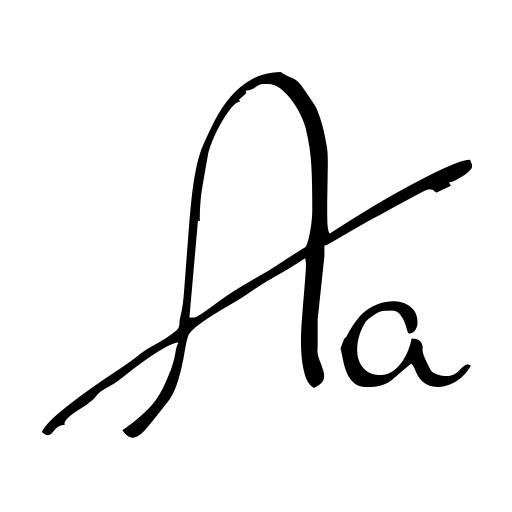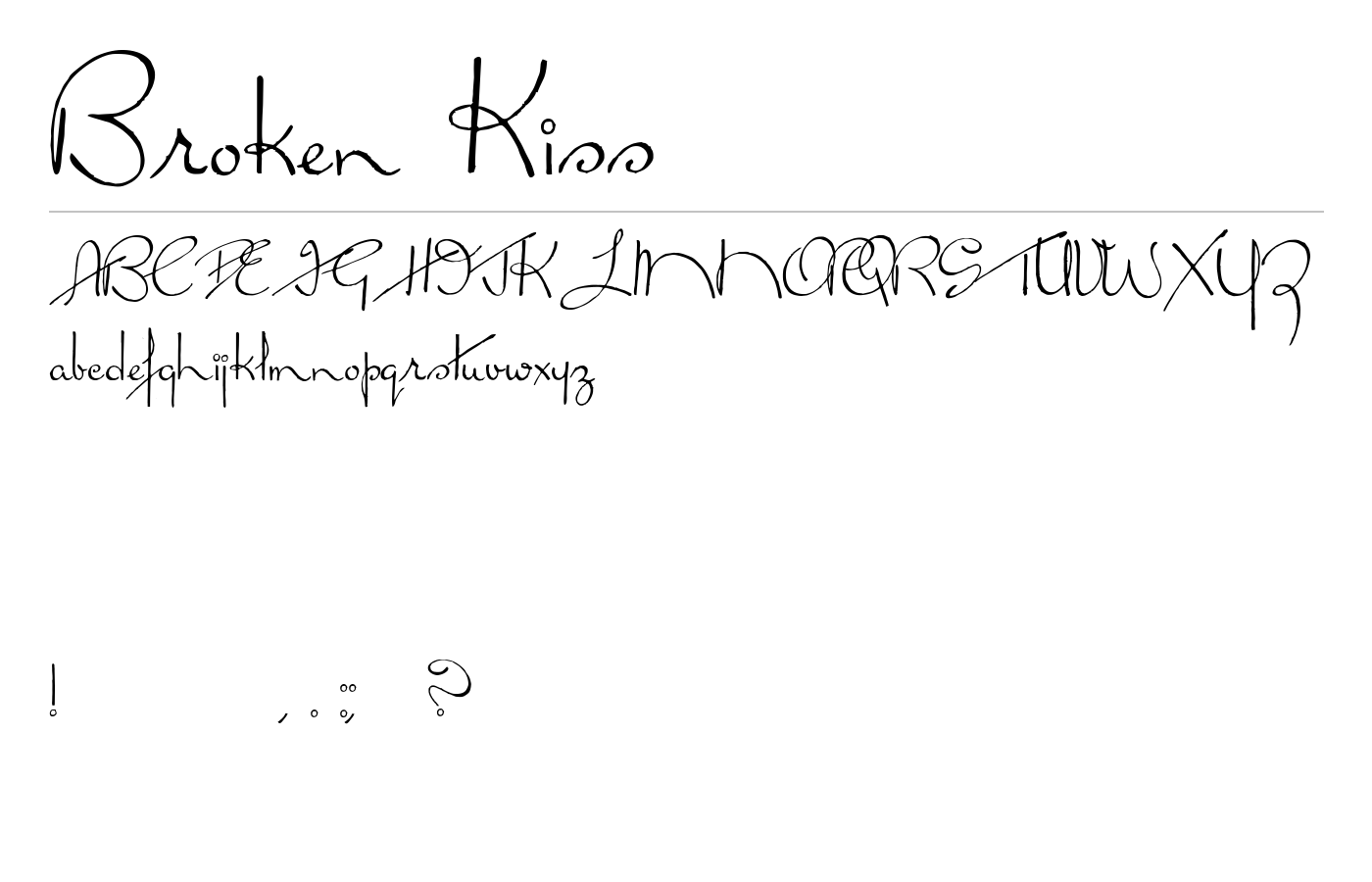
Broken Kiss is a delicate, handwritten script font with a whimsical and slightly erratic style, characterized by thin, uneven strokes and tall, narrow letterforms. Its quirky, artistic feel makes it ideal for creative projects, personal branding, and editorial designs where a unique, expressive touch is desired. This font works best in headlines, invitations, or logos that aim to convey individuality and a playful, informal vibe.
Broken Kiss Font
About Broken Kiss Font